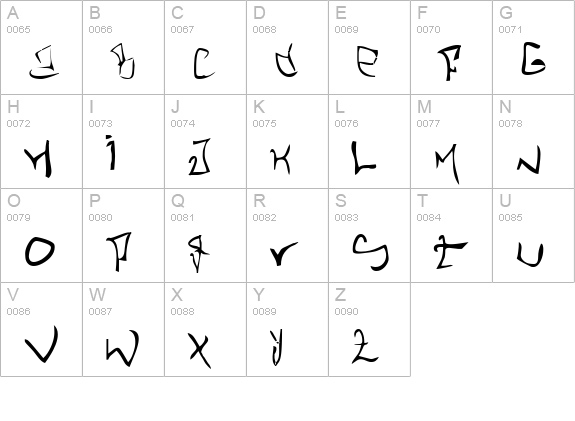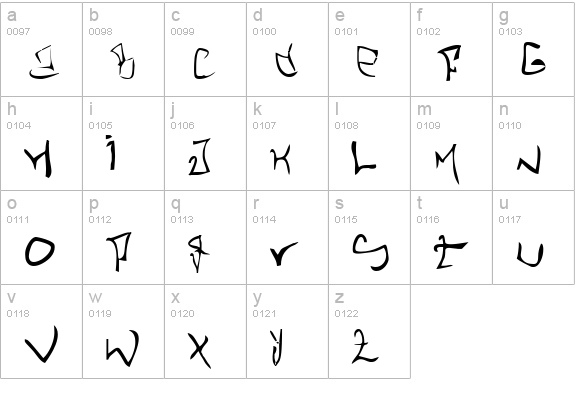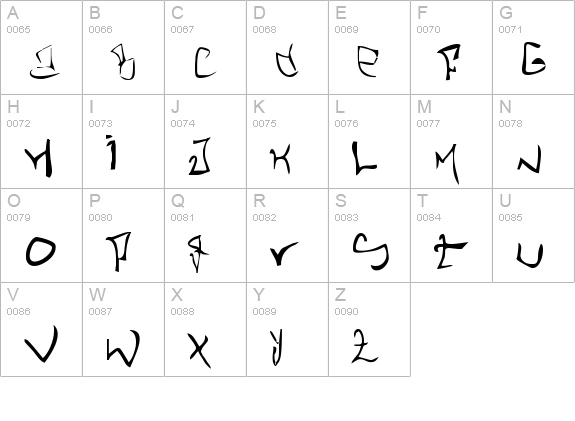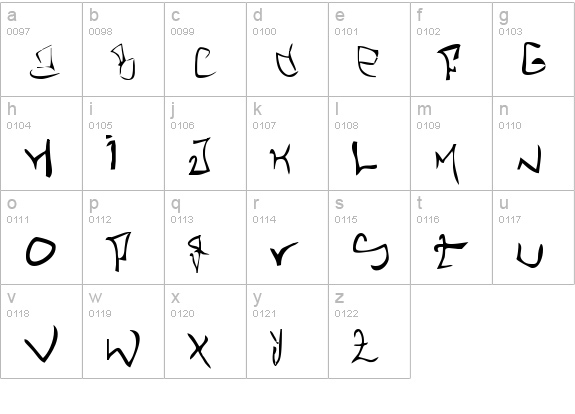
STHLM Graffiti Font Details
STHLM Graffiti font is a vibrant and dynamic typeface inspired by the urban art scene of Stockholm. Its bold and edgy design captures the rebellious spirit of street graffiti, making it perfect for projects that need a touch of urban flair. With its sharp lines and expressive letterforms, this font adds a modern and energetic feel to any design. Best of all, STHLM Graffiti font is available for free download at FontsMarket.com. This means you can easily incorporate this eye-catching typeface into your projects without any cost. Whether you're working on posters, flyers, or digital designs, STHLM Graffiti font is sure to make a statement and bring an urban edge to your work. Don't miss out on this exciting font that captures the essence of street art and creativity. Download STHLM Graffiti font today and let your designs stand out from the crowd!